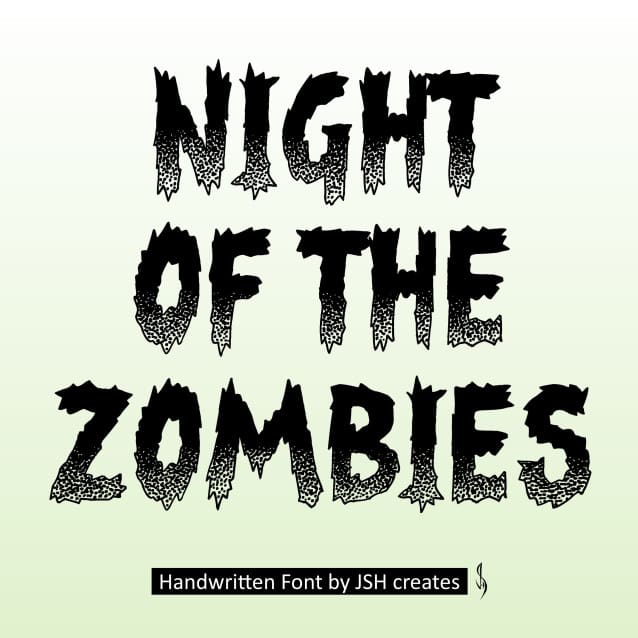
Night Of The Zombies Font
Night Of The Zombies Font, Cool horror font. Perfect for advertising and display purposes, including banners, book covers, shirts, posters, logos and much more!